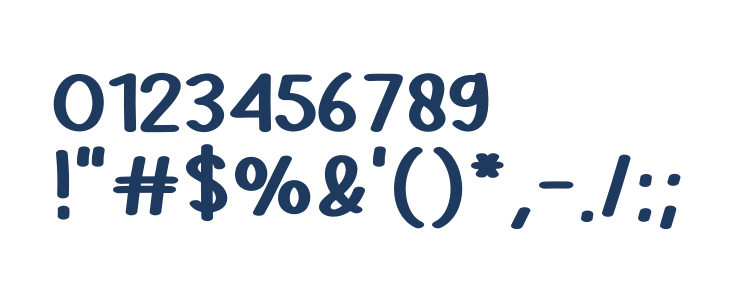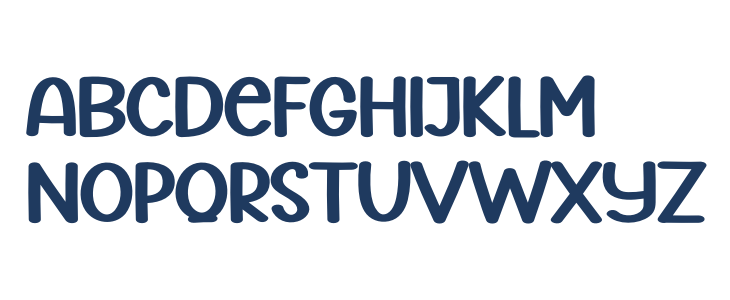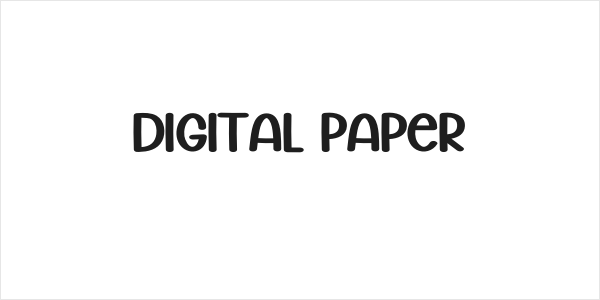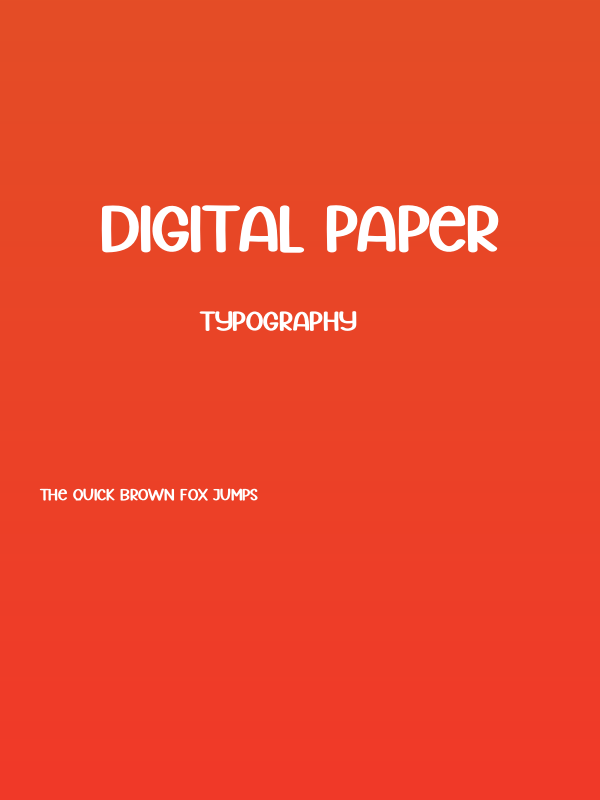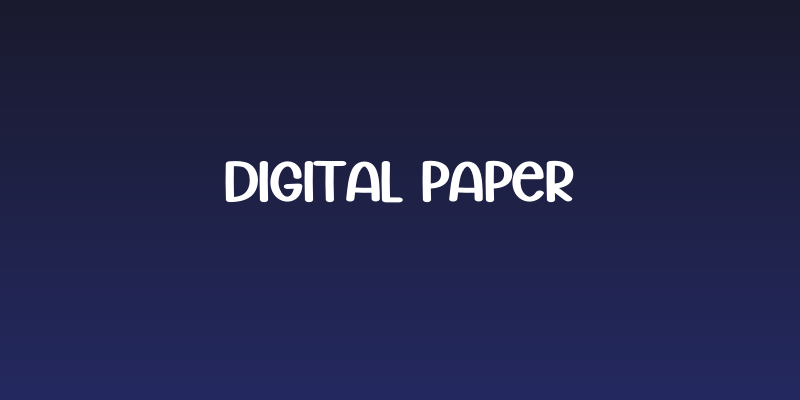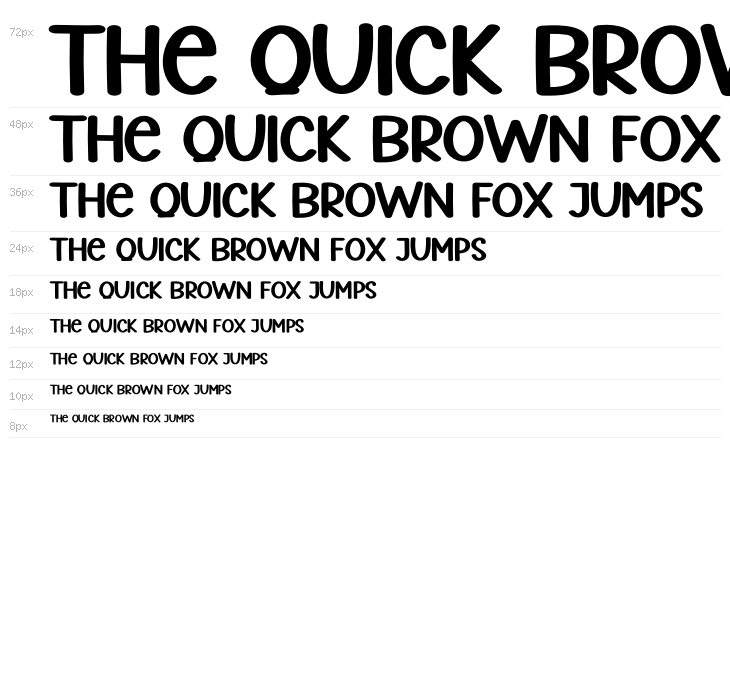
Digital Paper Font
Digital Paper Description
A playful, rounded sans-serif font with uniform stroke width, featuring soft curves and a friendly, handwritten appearance. The characters are bold and legible, with consistent proportions and a casual, approachable style.
Overall StylePlayful, Handwritten, Modern
Use CaseHeadlines, Posters, Branding, ChildrenÒ€ℒs materials
Proposed ProjectsChildrenÒ€ℒs books, posters, educational materials, branding for playful or informal products, greeting cards.